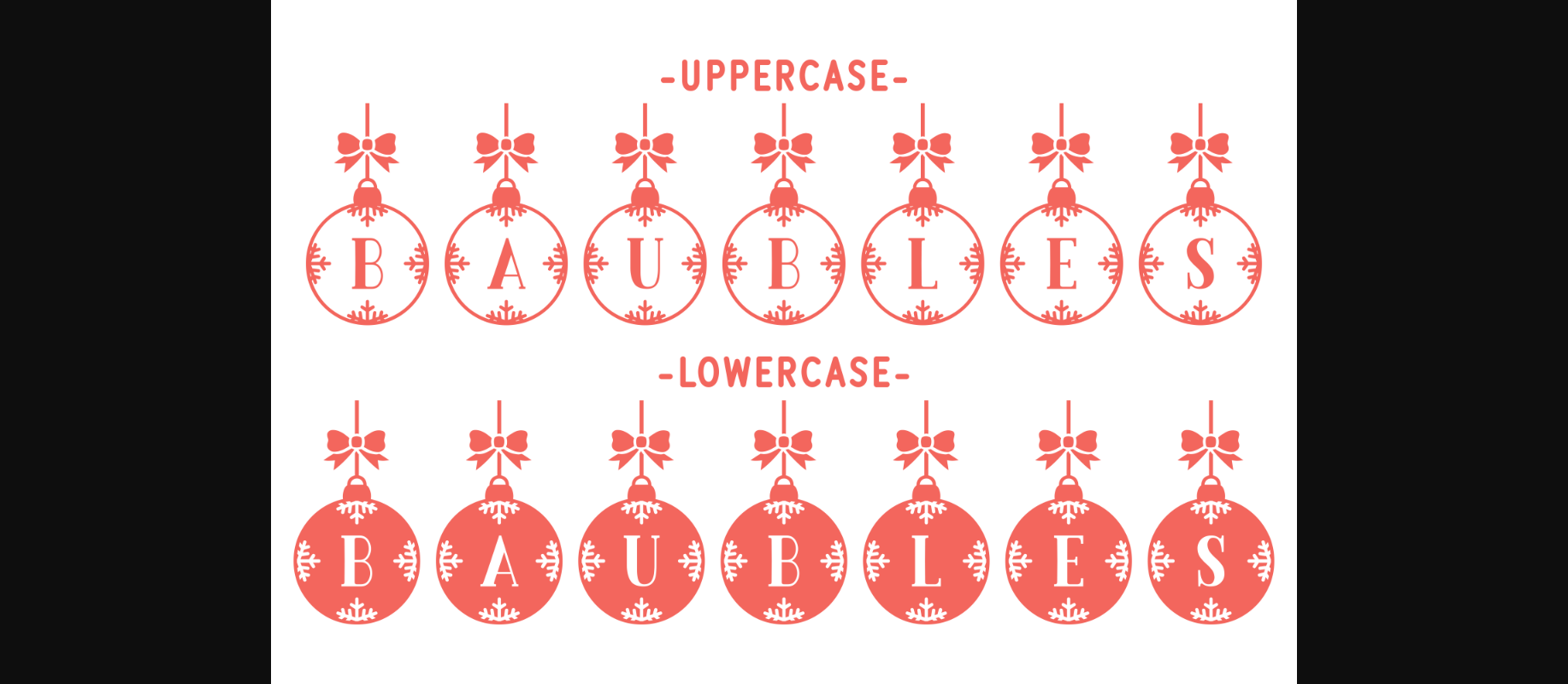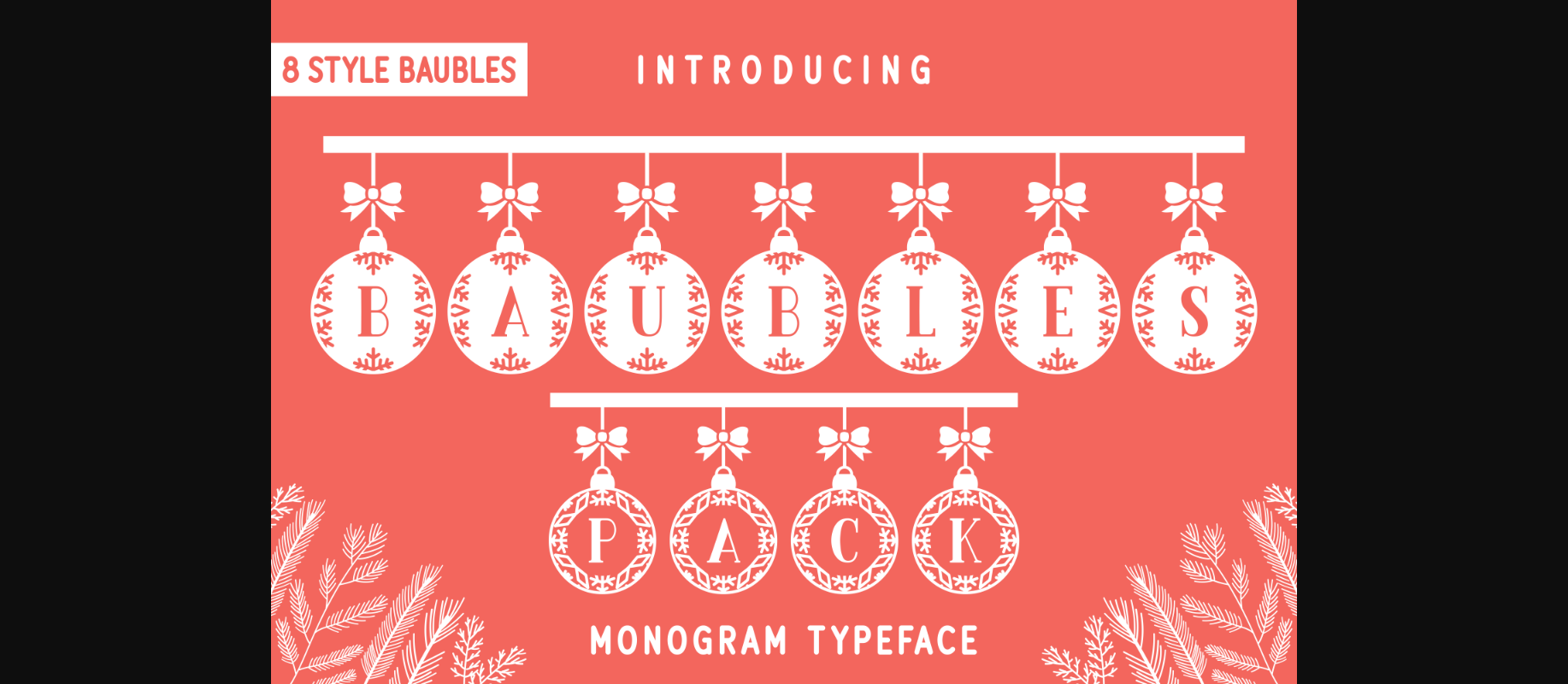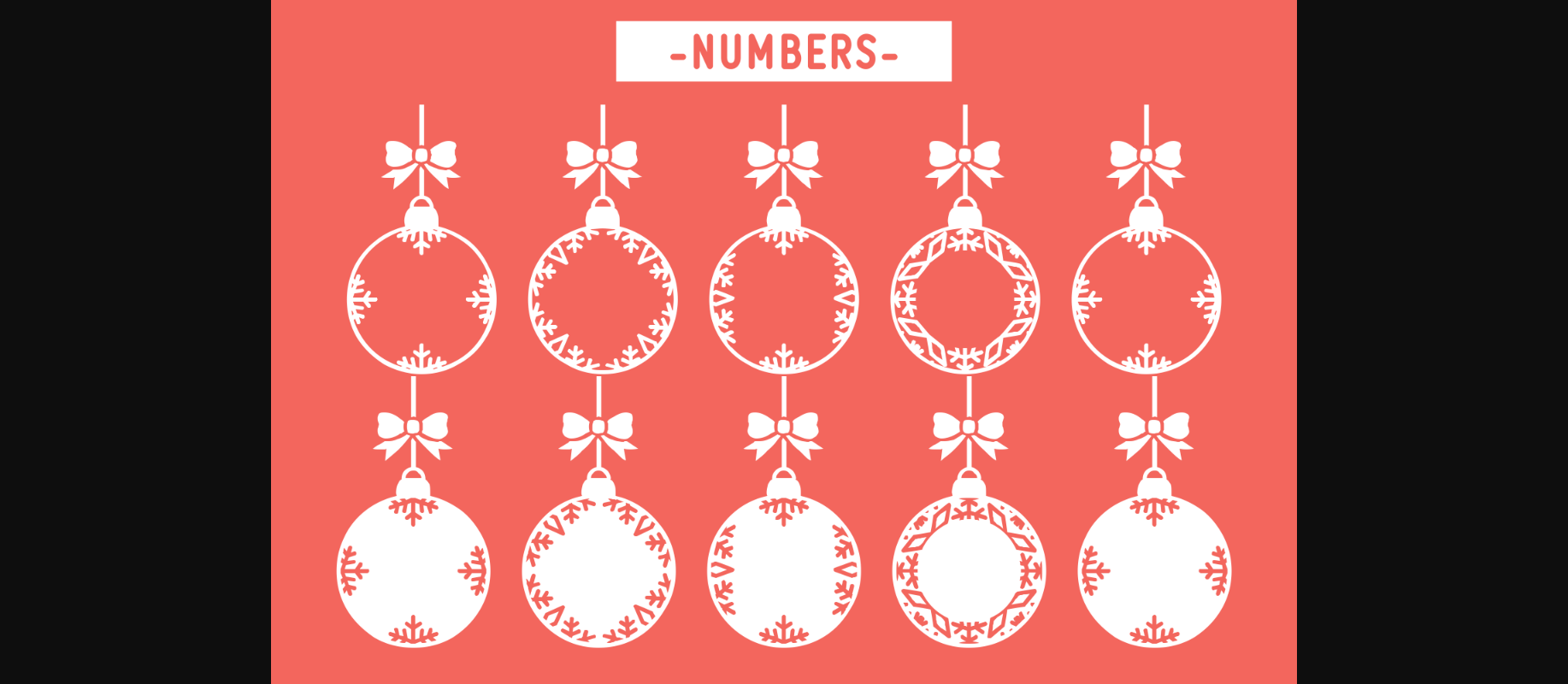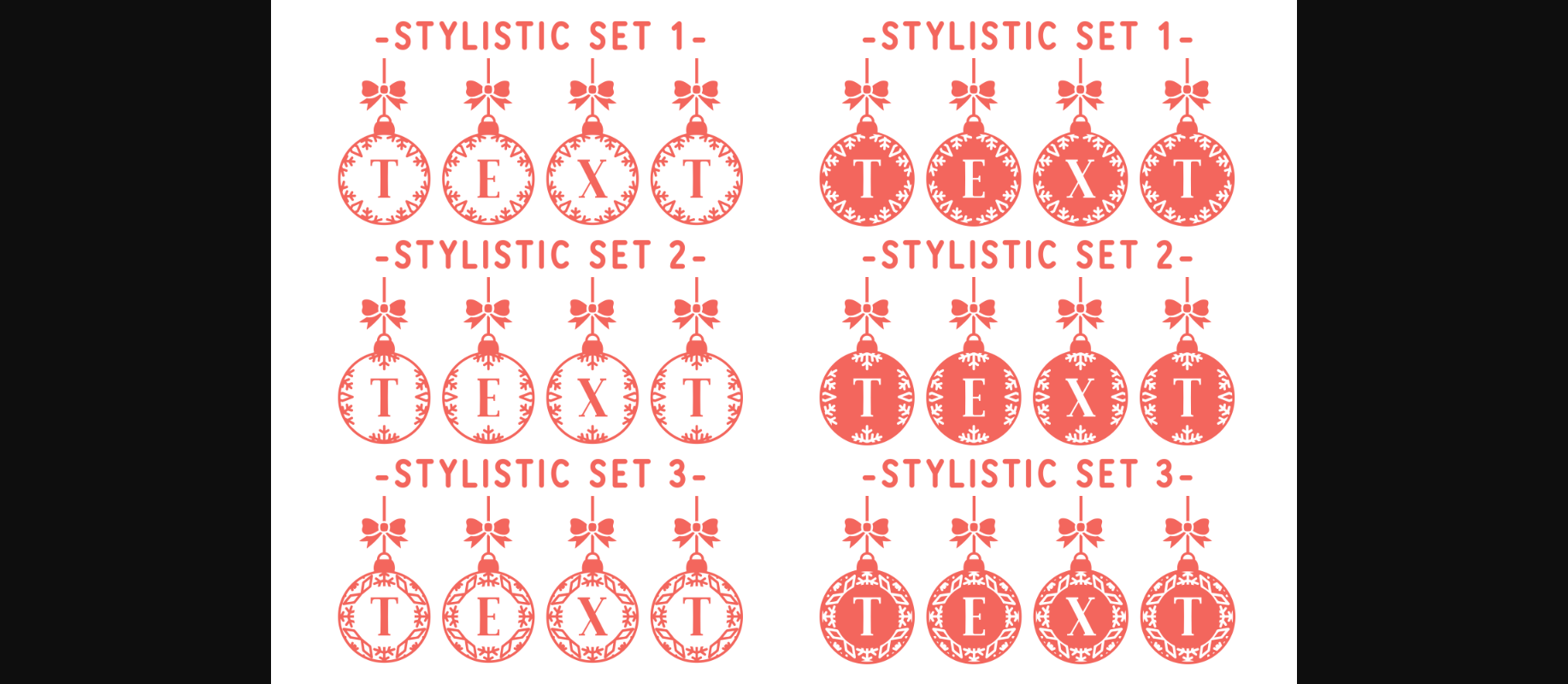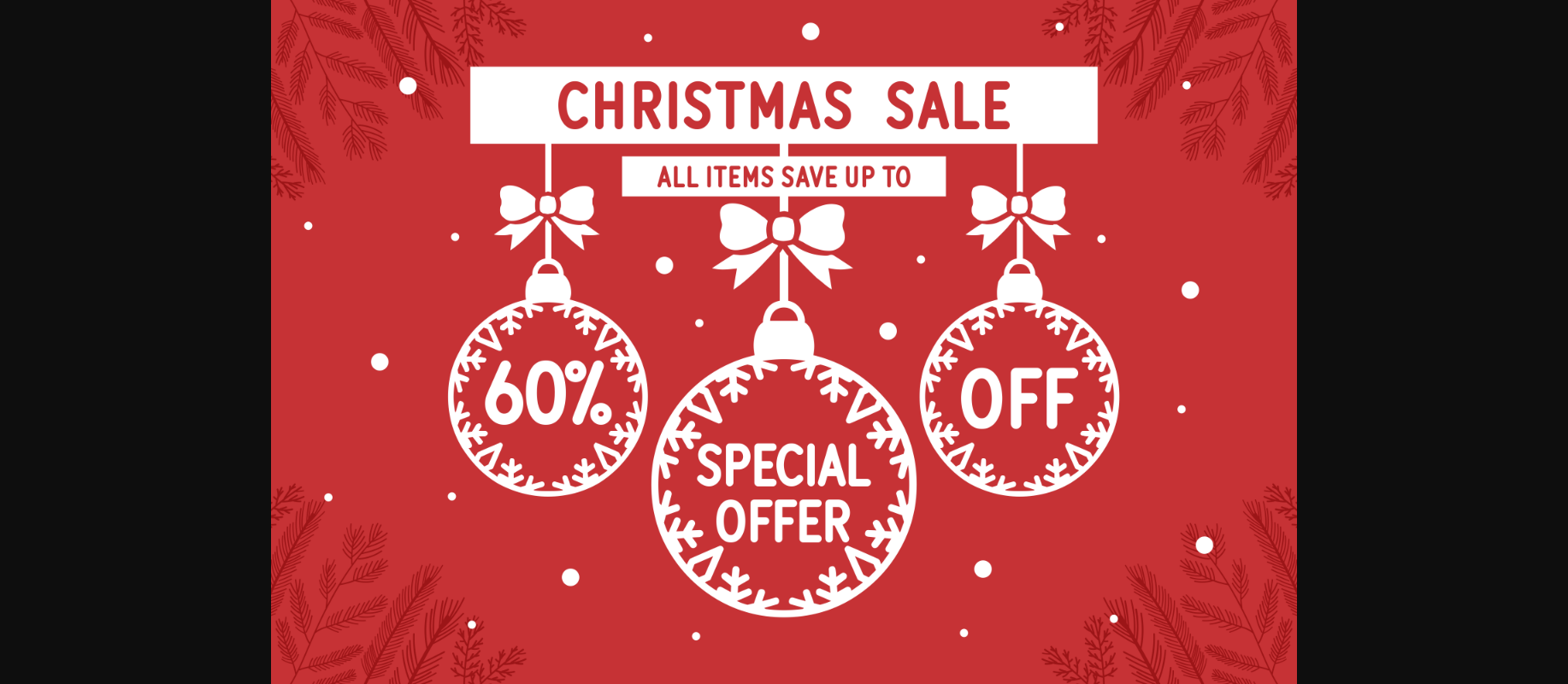
About Baubles Pack Font
Baubles Pack is a festive and charming decorative font, perfect for the winter holidays! Use it to create amazing Christmas gifts, home decor items, marketing materials, banners, or more. This font is PUA encoded which means you can access all of the glyphs and swashes with ease!